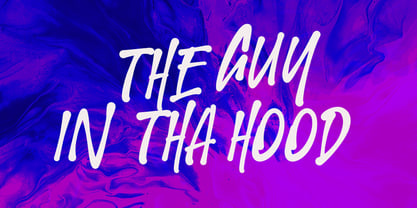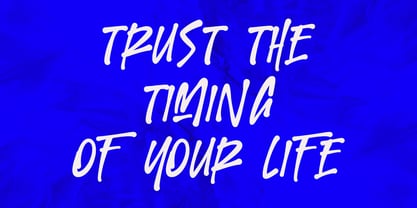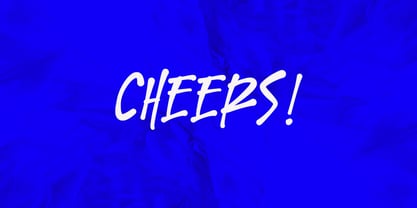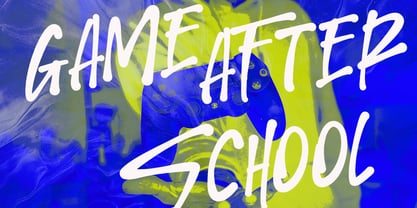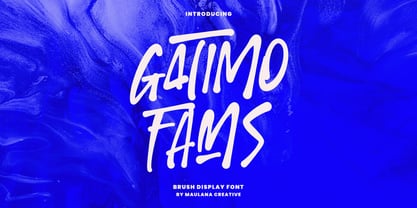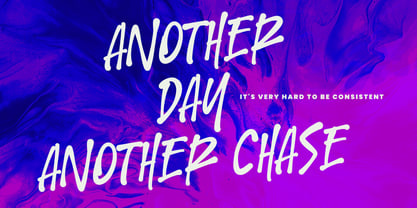
MC Gatimo Fams
by Maulana Creative
The MC Gatimo Fams Font Family was designed by Gilang Maulana and published by Maulana Creative. MC Gatimo Fams contains 1 styles. More about this family
Gatimo Fams is a bold and energetic brush display font that embodies a raw, street-style aesthetic. Hand-painted with authentic brush strokes, this typeface radiates a powerful, youthful, and contemporary vibe. Its dynamic, semi-slanted letters feature varied thickness and texture, making it ideal for designs that require a strong statement, such as music and sports branding, graphic design, gaming titles, and eye-catching social media content. Gatimo Fams includes full uppercase characters, numbers, punctuation, and multilingual support, providing the versatility needed for diverse creative projects that demand a gritty, modern, and memorable appearance. Created by Maulana Creative, this font is perfect for designers seeking to infuse their work with an edgy, urban flair.
Designers: Gilang Maulana
Foundry: Maulana Creative